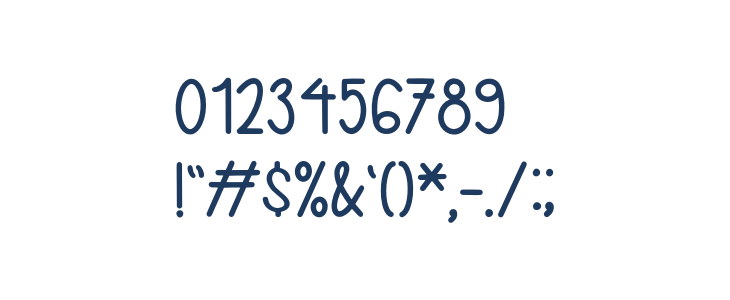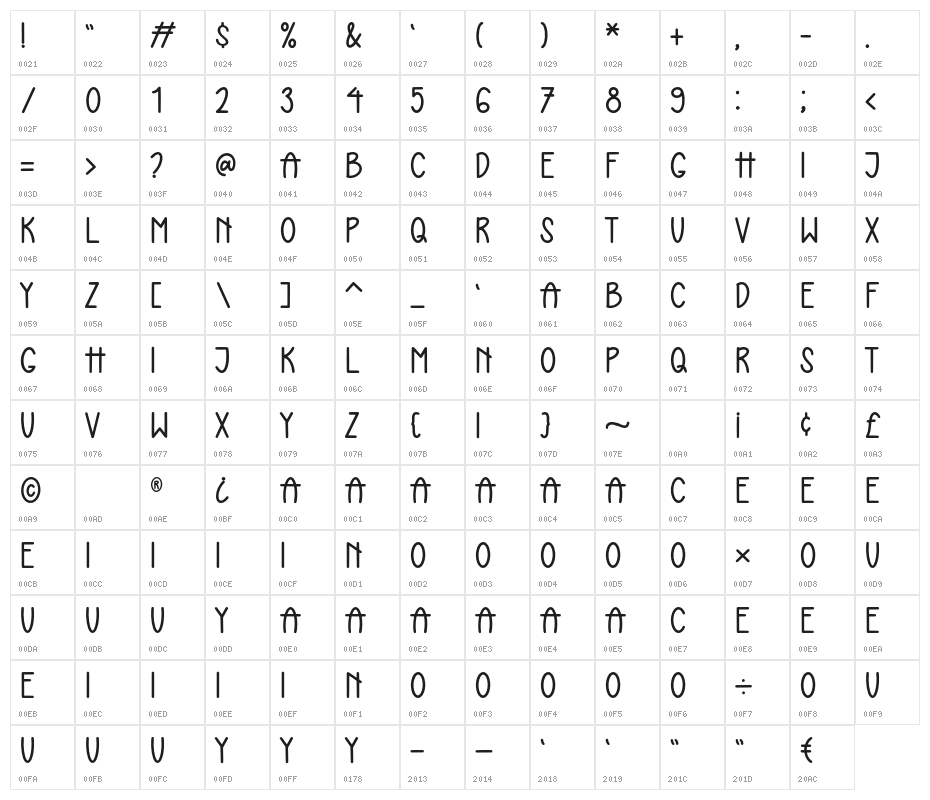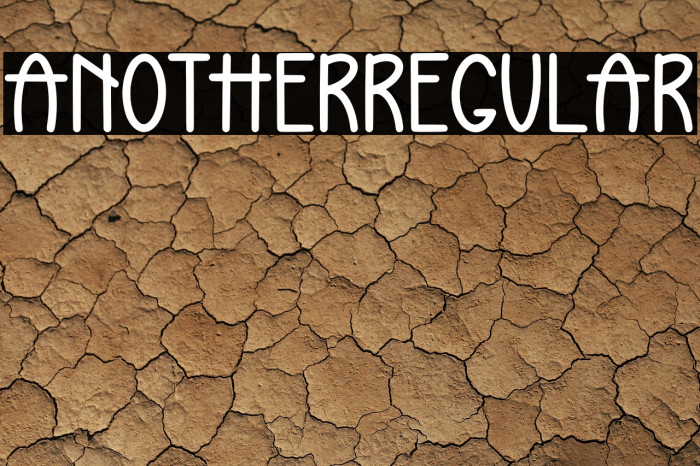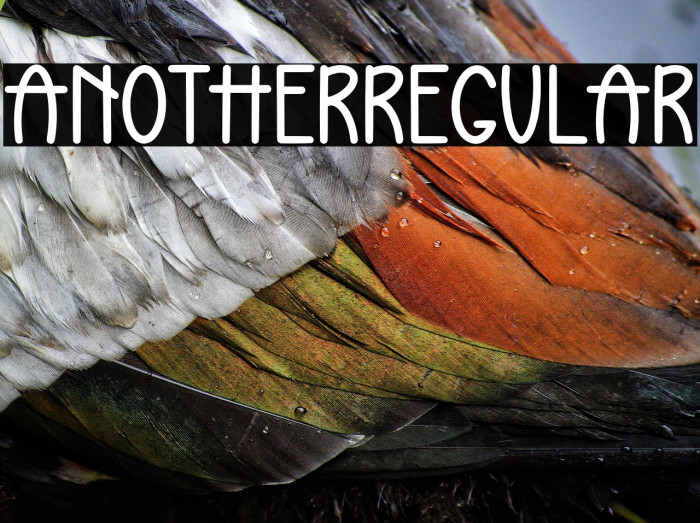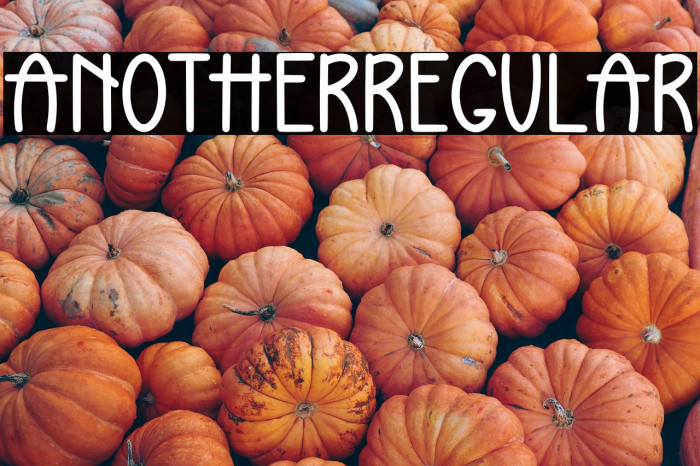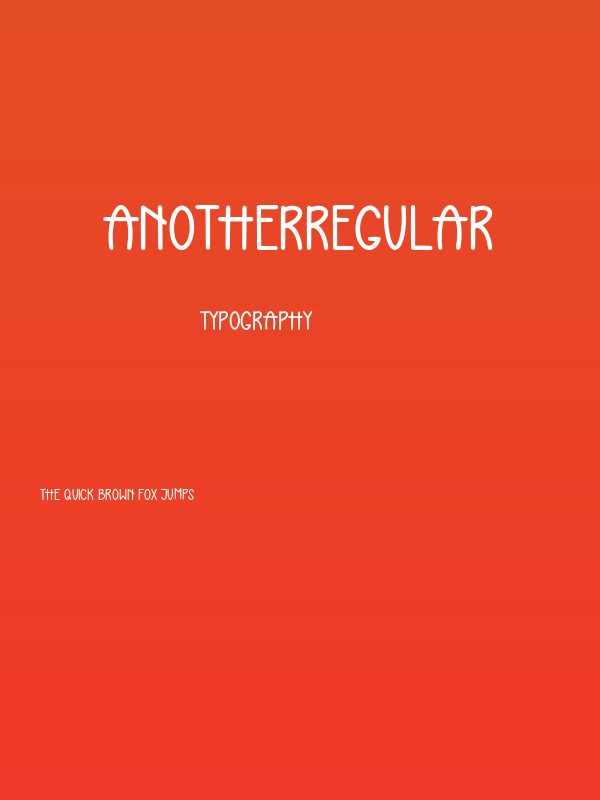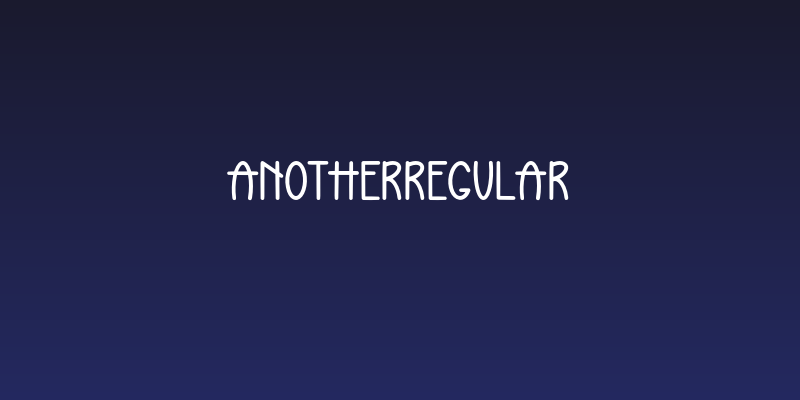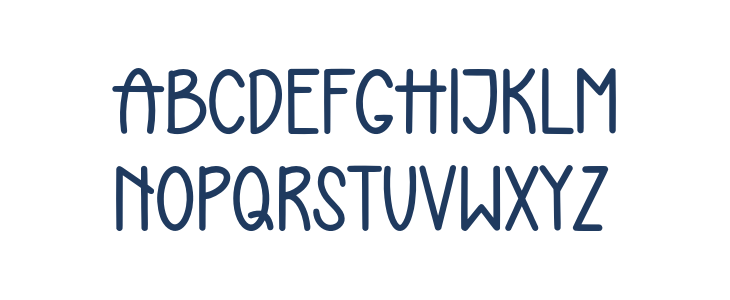
AnotherRegular Font
AnotherRegular Description
This font features a playful and rounded style, characterized by its smooth curves and consistent stroke width. The letters are tall and slightly narrow, giving a sense of height and elegance while maintaining a friendly and approachable appearance. The uniformity in stroke width provides a clean and modern look, making it versatile for various design applications. The numerals and special characters are designed to match the overall aesthetic, ensuring a cohesive appearance across all text elements. The font's simplicity and readability make it suitable for both digital and print media.
| Proposed Projects | Ideal for children's books, playful branding, casual invitations, and social media graphics. |